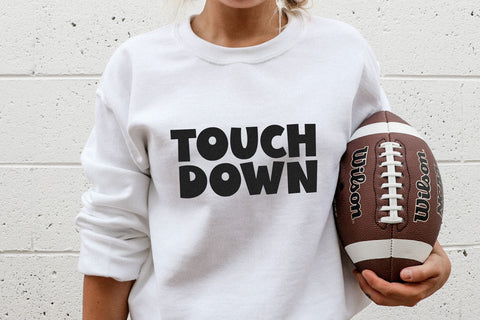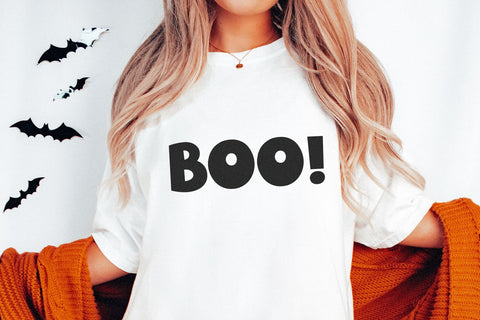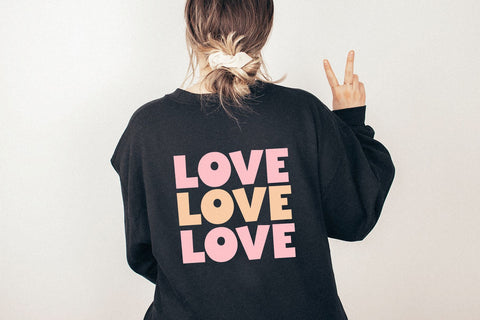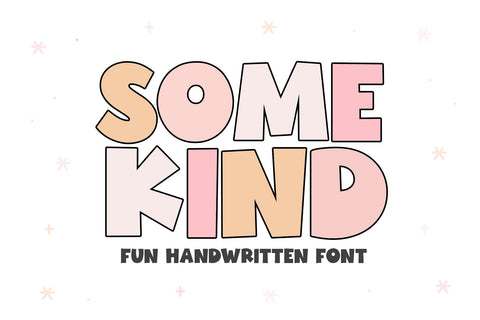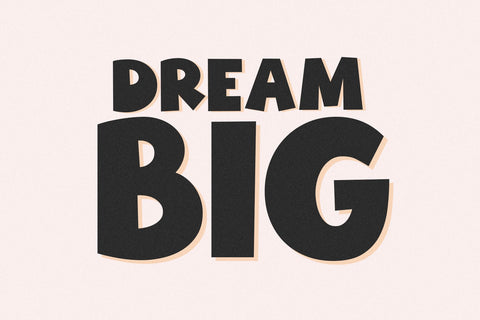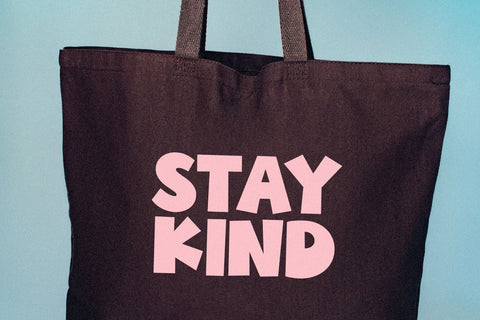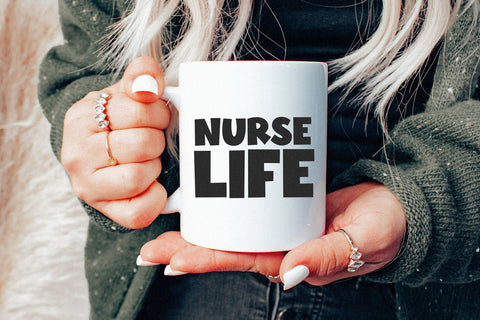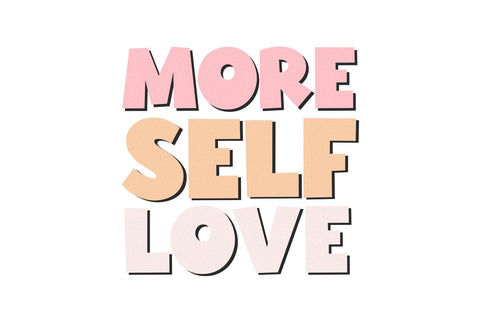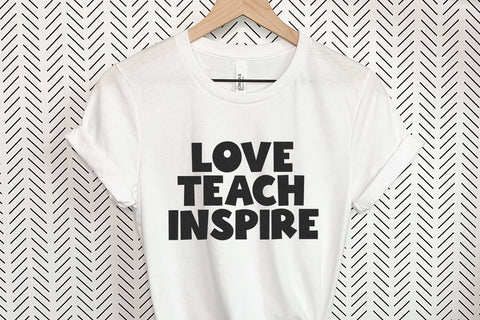
Somekind - Fun Handwritten Font
Somekind is a fun handwritten font with big, bold letters!
This font is perfect for your crafts, cricut projects, shirts, stickers, procreate and more!